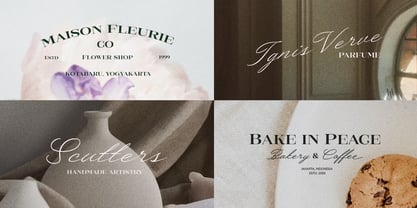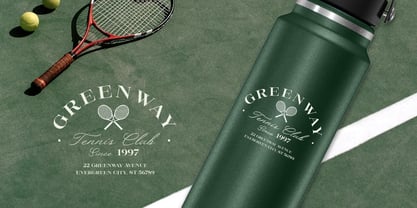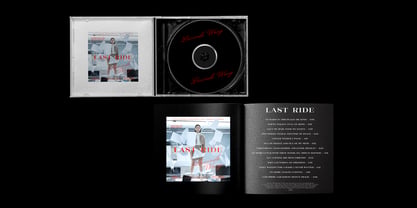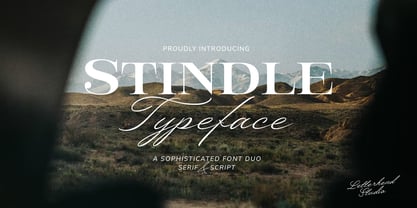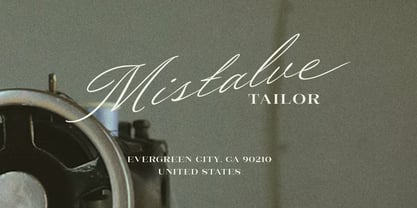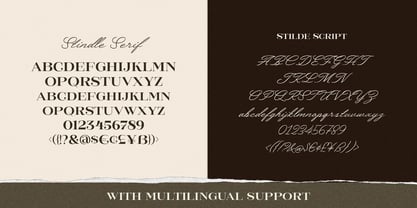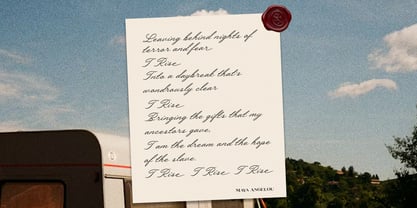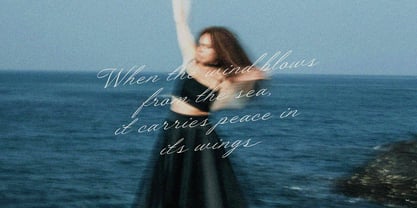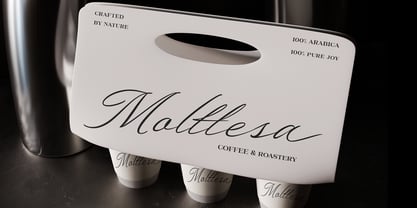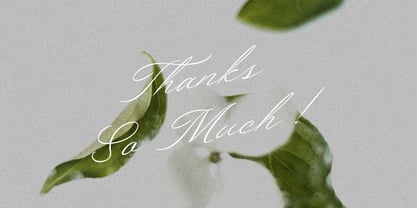
Stindle
by Letterhend
The Stindle Font Family was designed by Hendry Juanda and published by Letterhend. Stindle contains 2 styles and family package options. More about this family
Stindle Typeface is a refined font duo that beautifully combines classic serif strength with elegant script fluidity. Its serif style offers a sense of sophistication, stability, and luxury—perfect for editorial layouts, branding, and packaging—while the script counterpart adds a graceful, handwritten charm. Together, they create a timeless harmony that evokes both professionalism and artistry. Features : Uppercase & lowercase Numbers and punctuation Alternates & Ligatures Multilingual Support PUA encoded
Designers: Hendry Juanda
Foundry: Letterhend